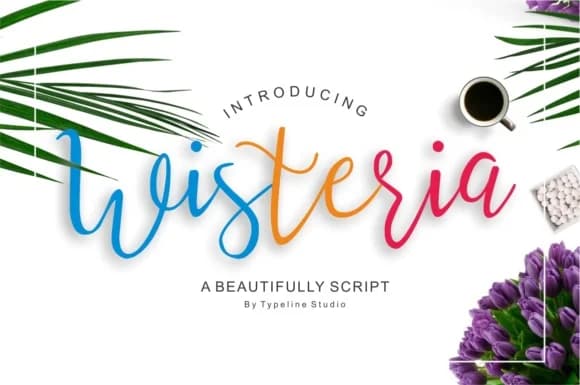
About Wisteria Font
Wisteria by typelinestudio is an elegant script typeface with flowing letterforms that authentically capture the graceful, organic quality of handwritten calligraphy. This typeface brings refined sophistication and personal warmth to projects that genuinely benefit from handcrafted aesthetic sensibilities.
The versatility of this flowing script makes it an excellent choice for luxury wedding invitation suites where hand-lettering feels more intimate than commercial typography. It's equally suited to upscale stationery packaging, bespoke event menu designs, and custom branding for boutique retail spaces. Designers and crafters regularly use Wisteria to enhance social media graphics with decorative letterforms that stand out in crowded feeds, create personalized monogram designs for gifts and keepsakes, and develop branding collateral for specialty salons and jewelry retailers. Its flowing baseline and naturally connected letterforms work particularly well when elegance and graceful movement need to convey as much meaning as the words themselves.
Wisteria Font is a script font that shines as a display or heading face. Pair it with a clean sans-serif or serif font for body text β the contrast creates a clear hierarchy while the two styles stay balanced and easy to read.